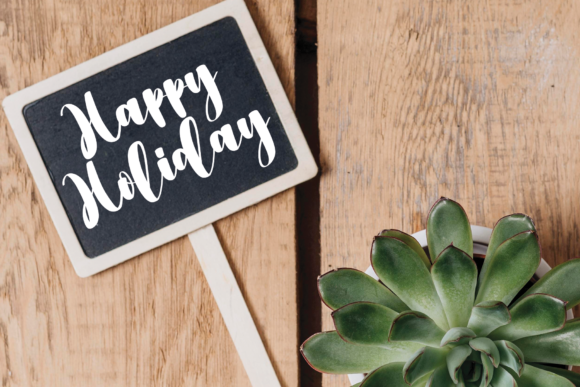
Calligraphy Font
About Calligraphy Font
Calligraphy is a creative script and modern font, suitable for various products such as invitations, product packaging, quotes, product design, crafter, labels, photography, watermarks, logos & branding.